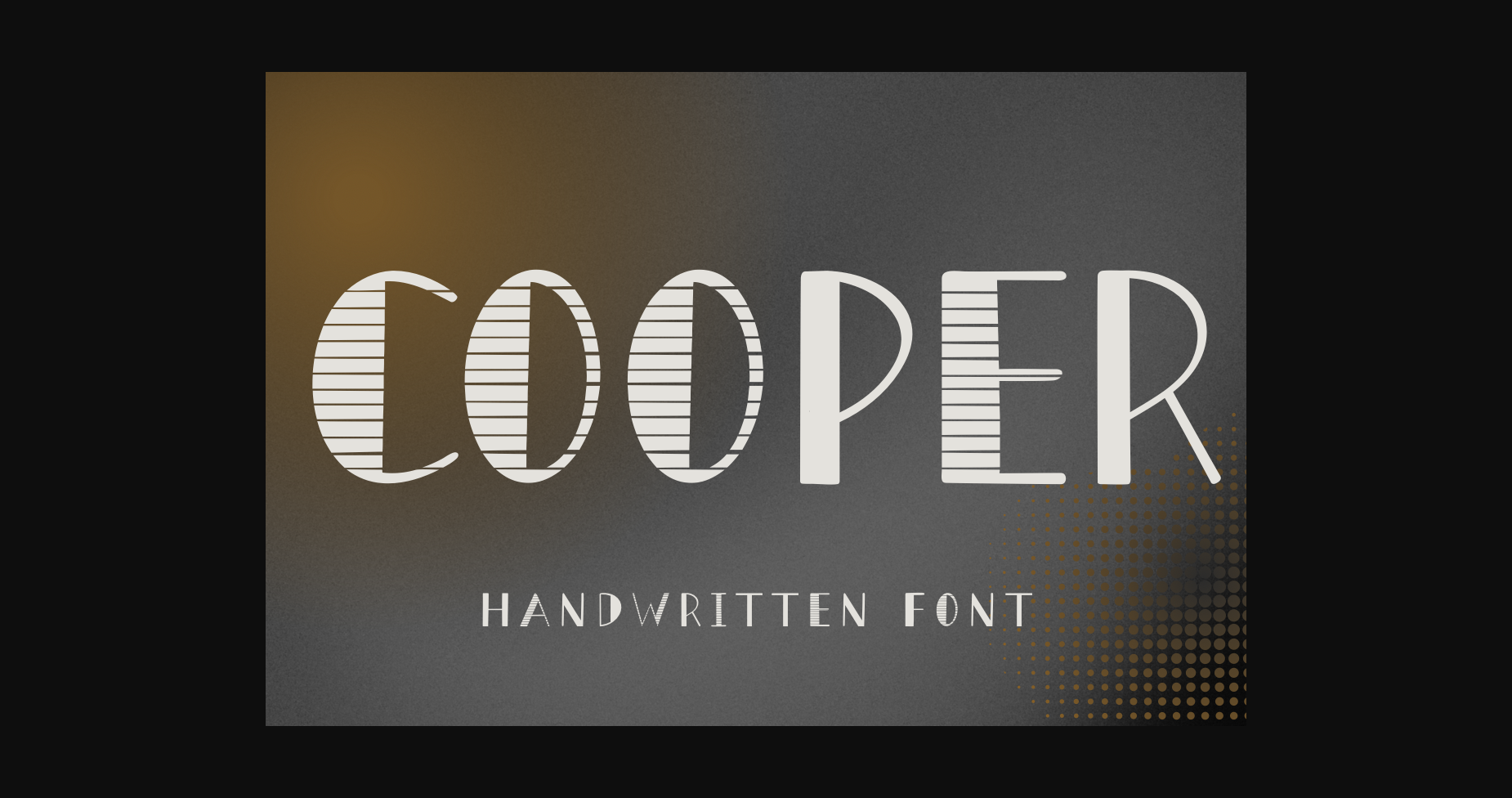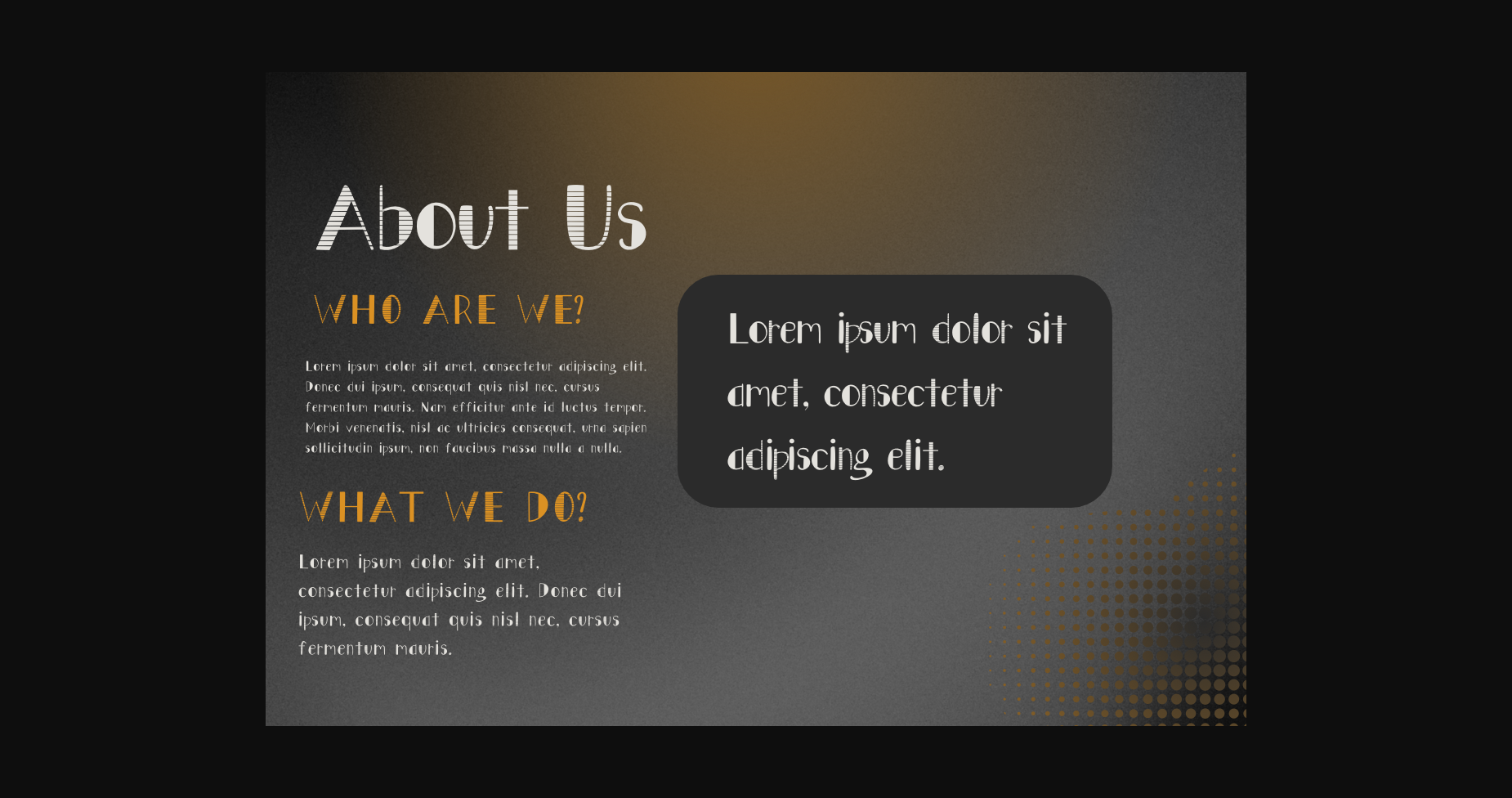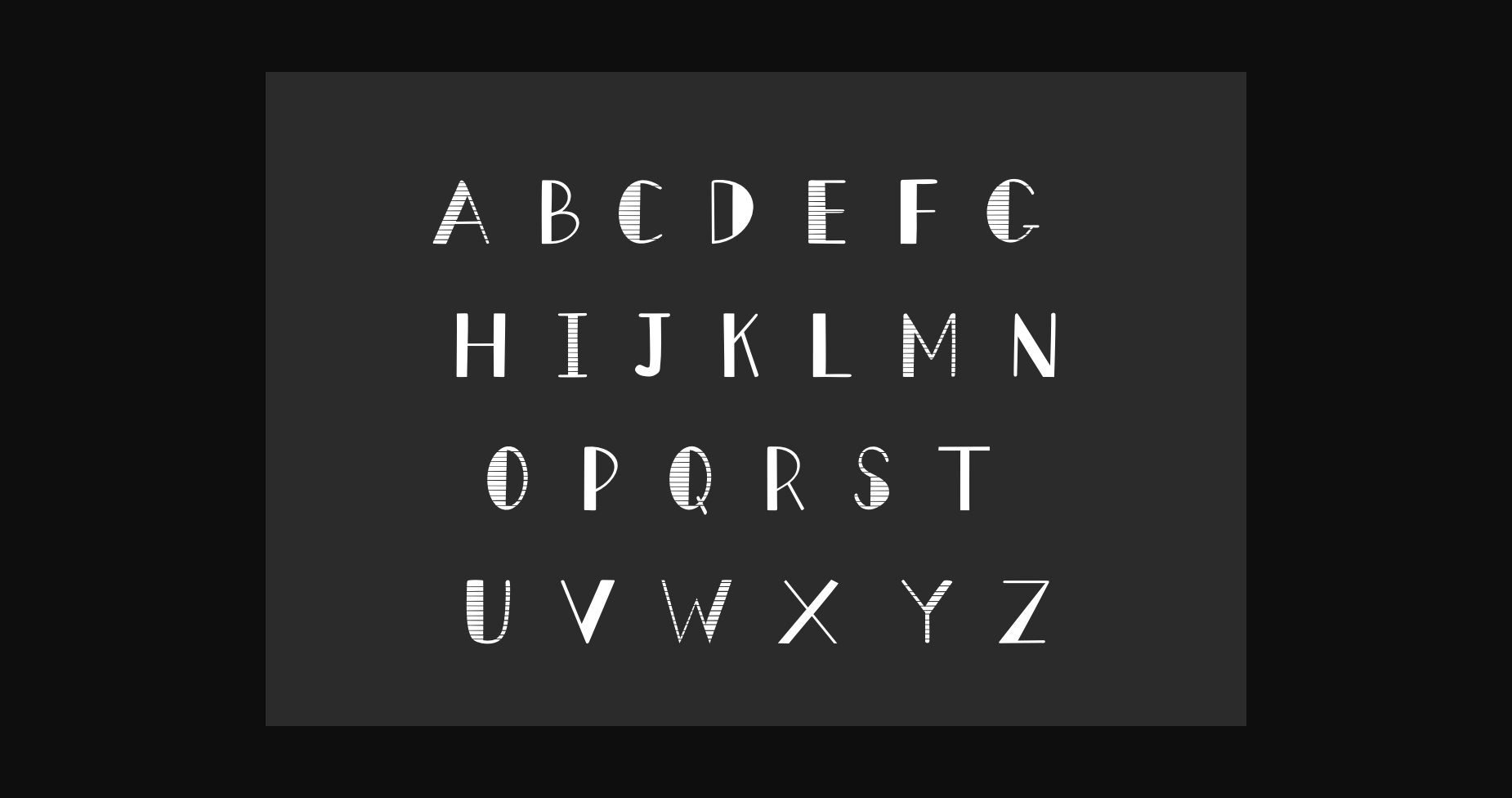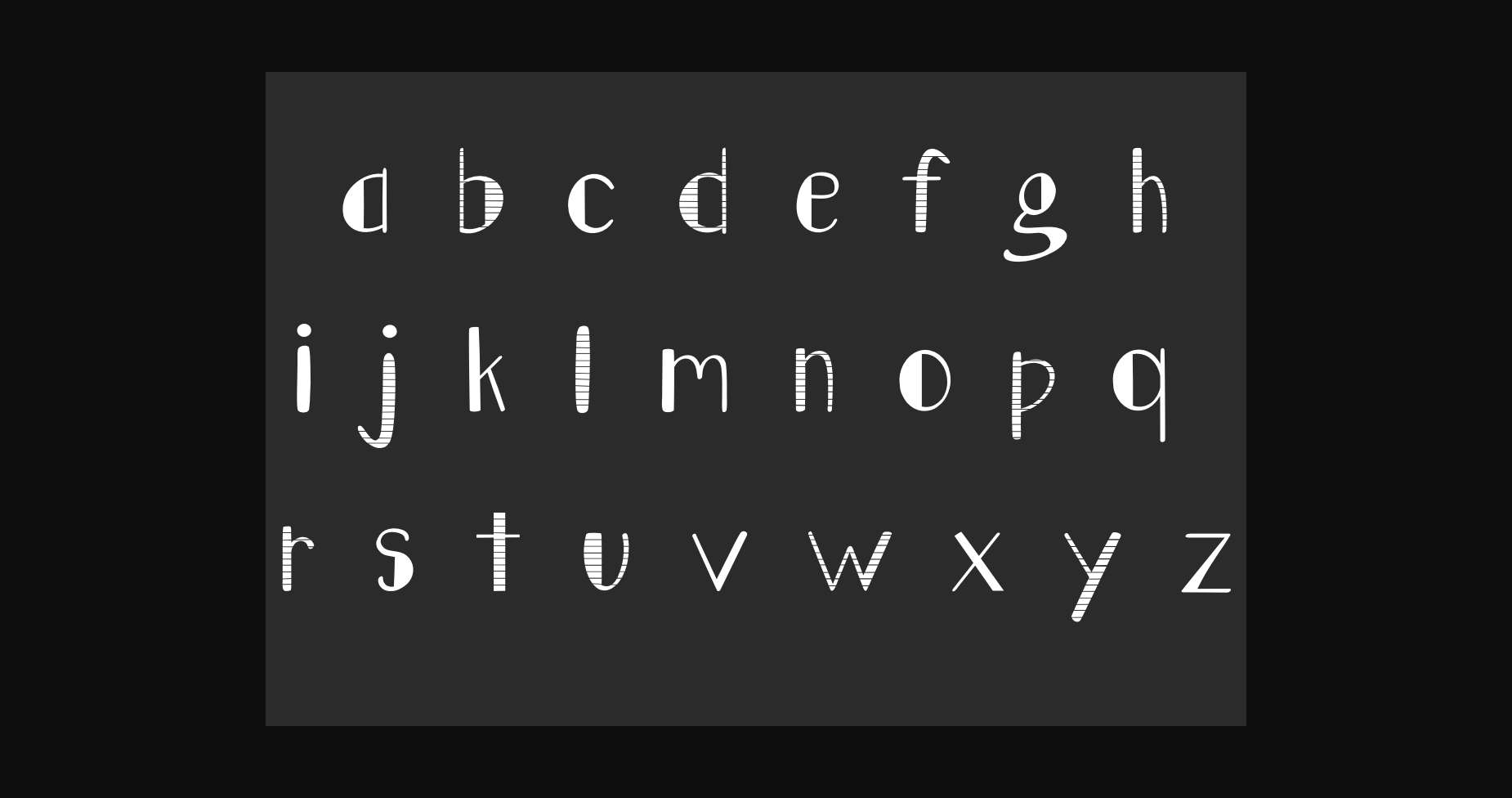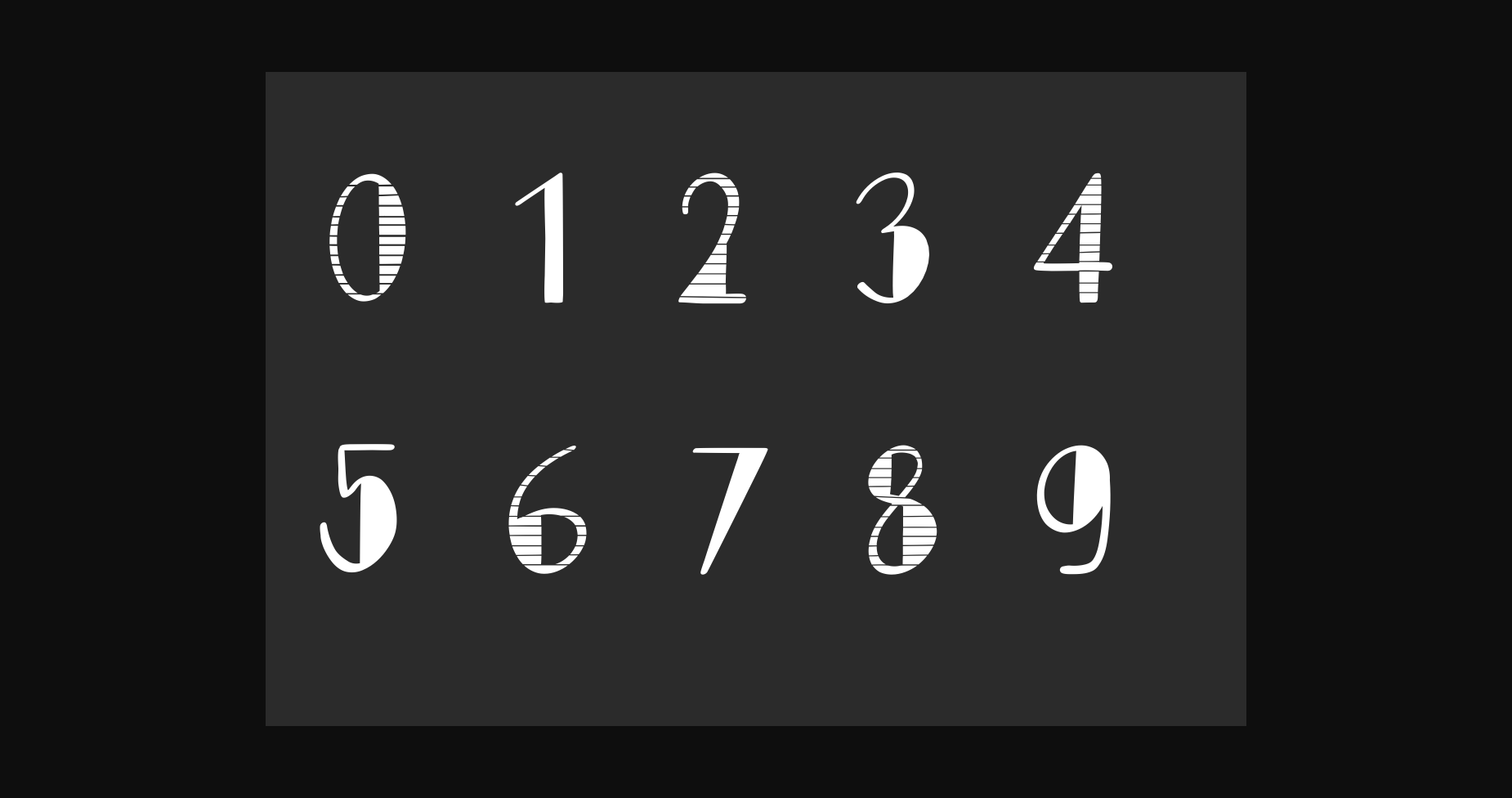
Cooper Font
About Cooper Font
Cooper is cool handwritten sans serif font. It serves as a perfect addition to your projects related to Easter and back to school. It is aslo suitable for weddings, party decoration, invitations, posters, blogs, clothing, child-related designs, greeting cards, social media, logos and much more.